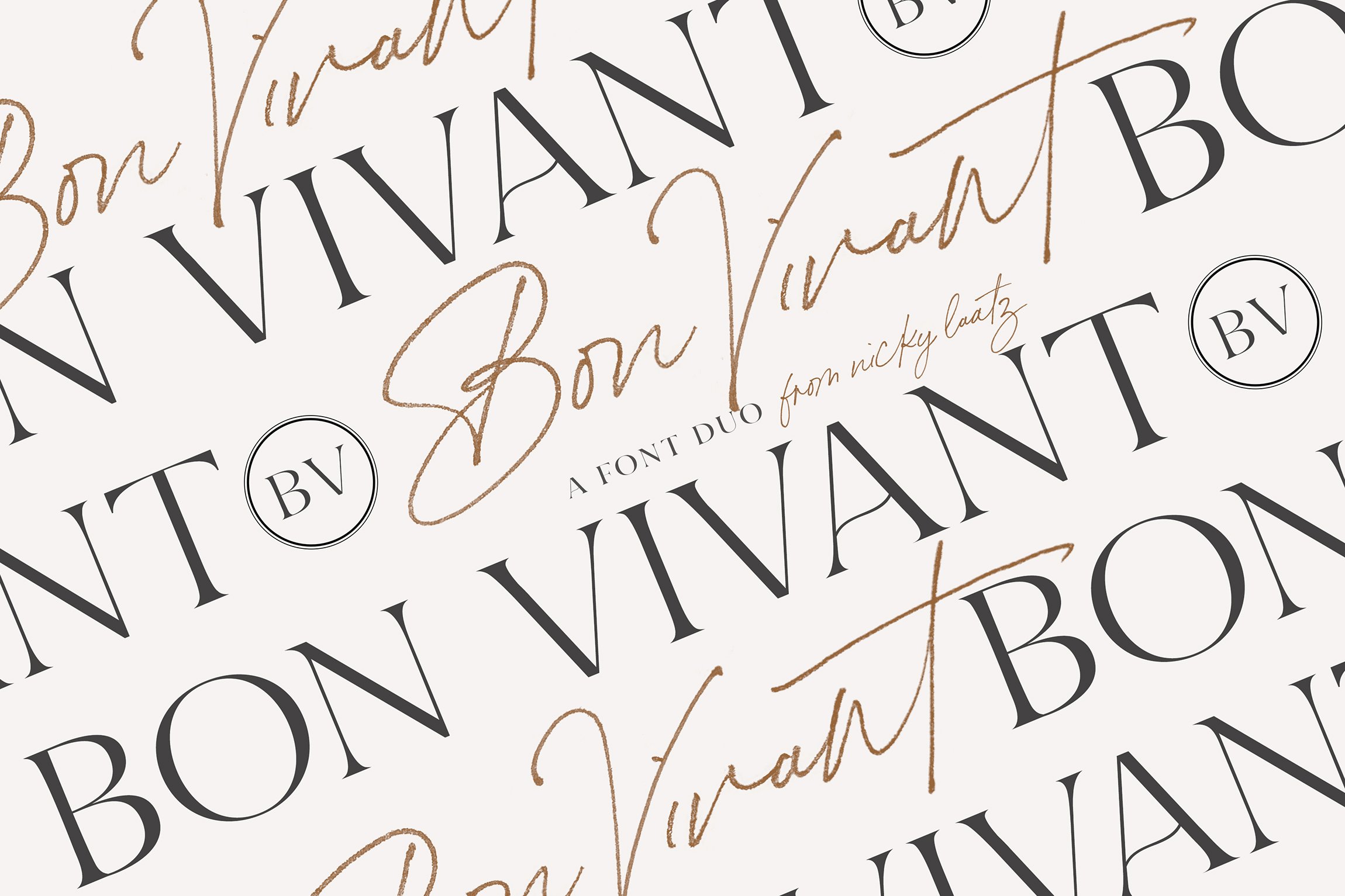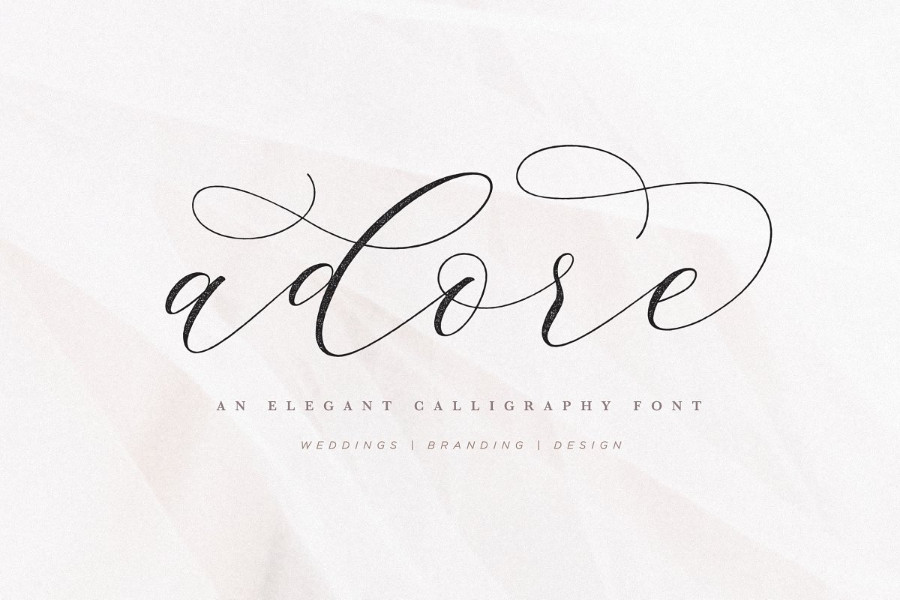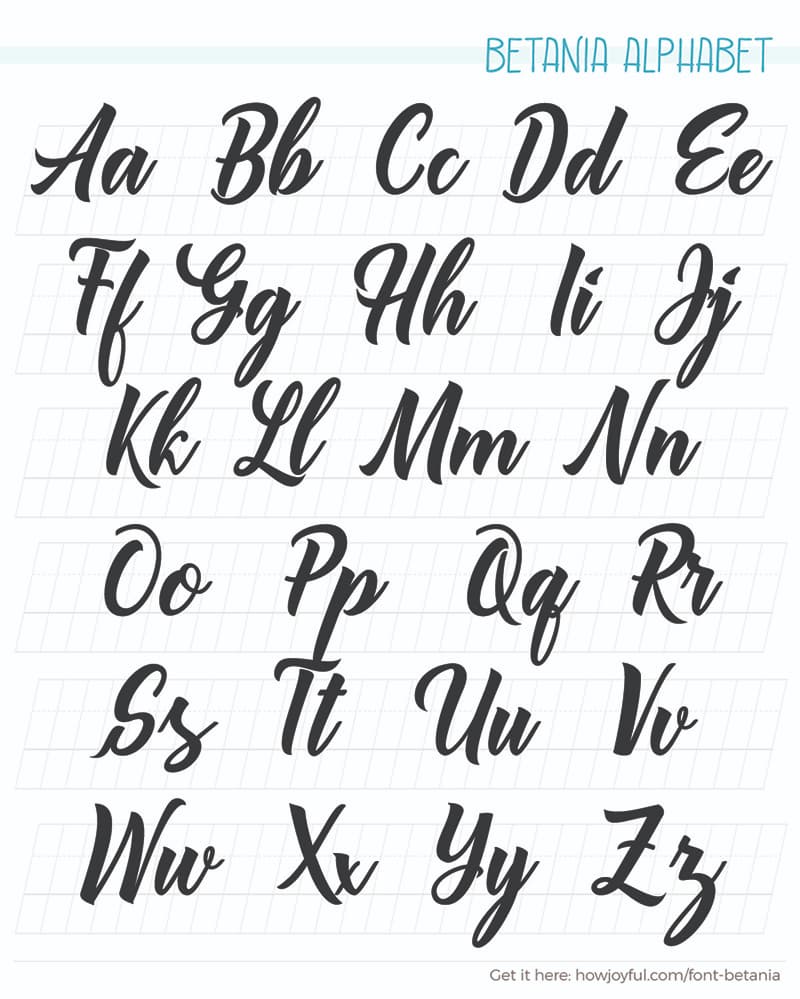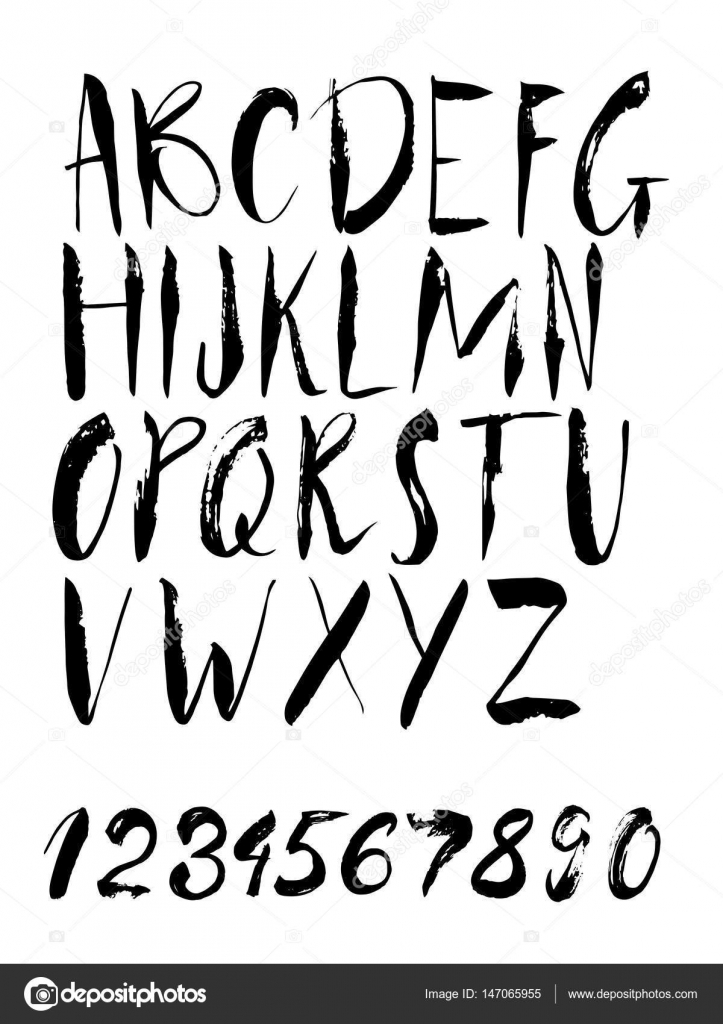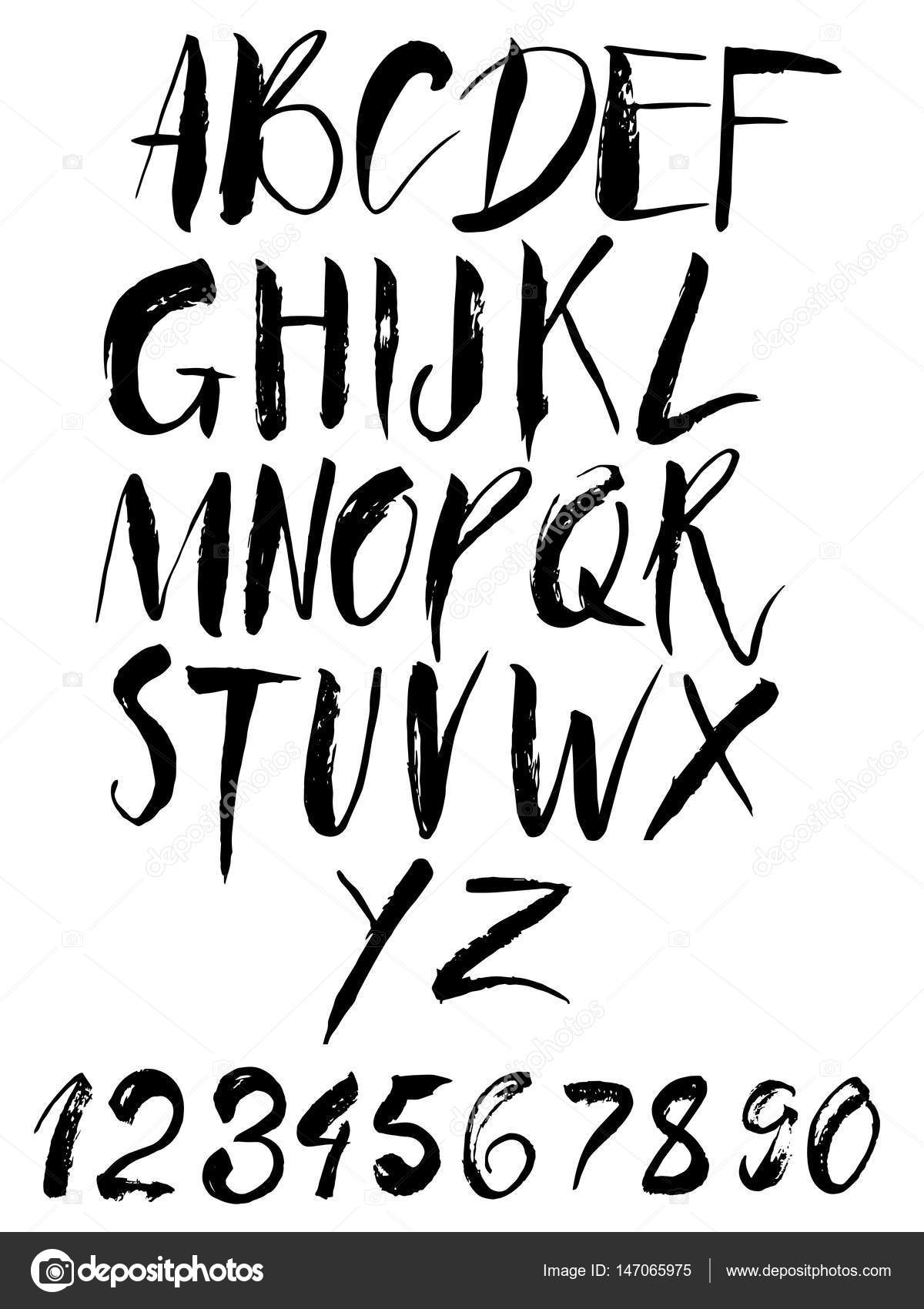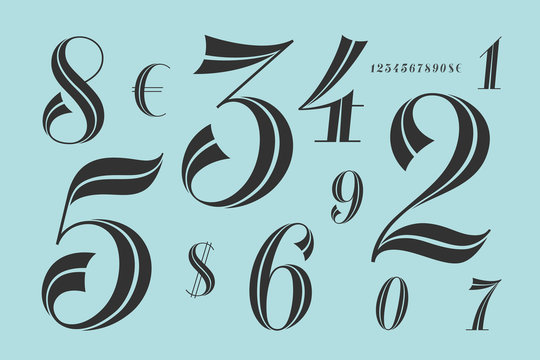
Swashes and stylish alternates are often a big part of calligraphy fonts. This beautiful font has such long sweeping strokes and swirls.
Calligraphy numbers in different fonts. Calligraphy is an artistic writing style where the pressure is varied to create thick and thin lines all in a single stroke. Google Fonts is a library of 1052 free licensed font families and APIs for conveniently using the fonts via CSS and Android. There are so many of them that you would bite your nails when it comes to picking one as your favourite.
Calligraphy fonts are types of computer files that can be used by various other programs to enable different styles of text in those programs. Here is another take on the calligraphy aesthetic but with a different personality. Calligraphy fonts are fonts that are specifically created to resemble styles of writing referred to as calligraphy and are.
In fact calligraphy is displayed by some fonts. There are a number of different fonts typically available in many computer programs such as Times New Roman and Courier. Sublimity Calligraphy Font Sublimity Modern Signature Typeface.
See calligraphy numbers stock video clips. We talked about different calligraphy alphabets and now its the time for some really cool calligraphy fonts. However either western calligraphy or Chinese or Arabic calligraphy they have strict rules and shapes with a geometrical order of lining on the page each character with a precise stroke order.
The main sub-styles are traditional calligraphy and modern.